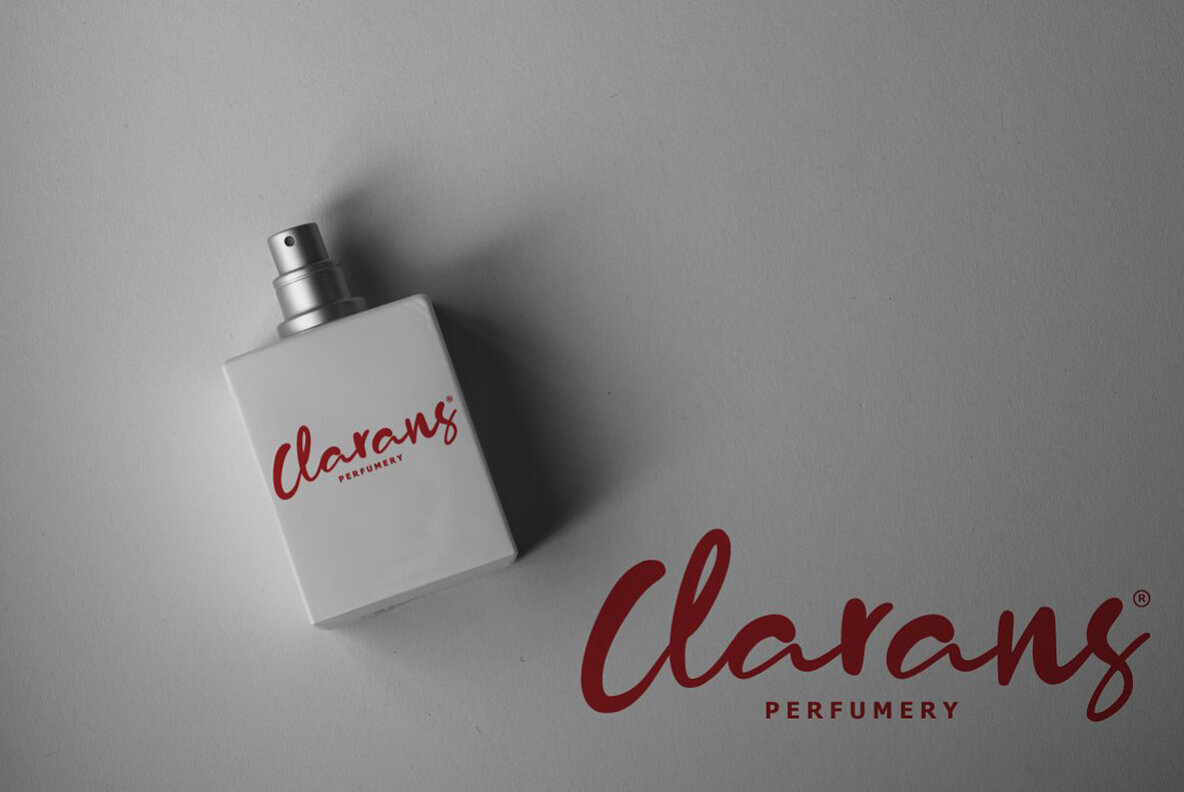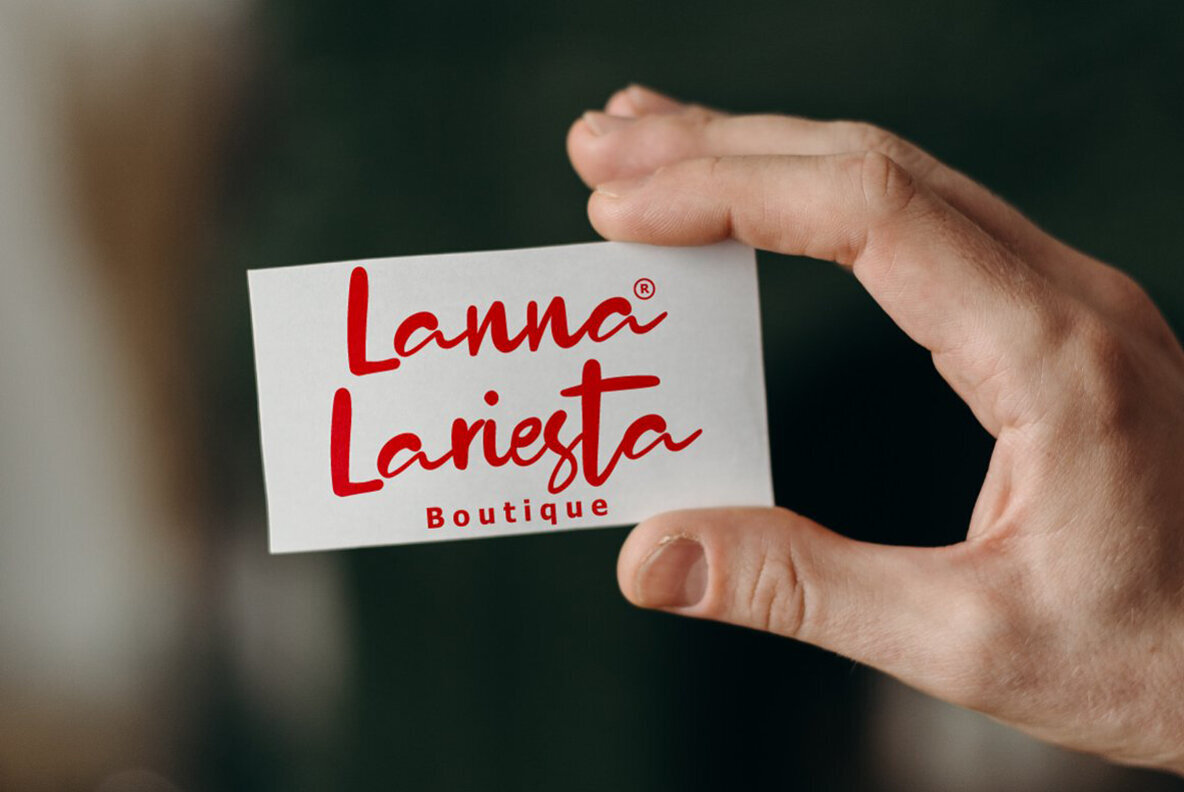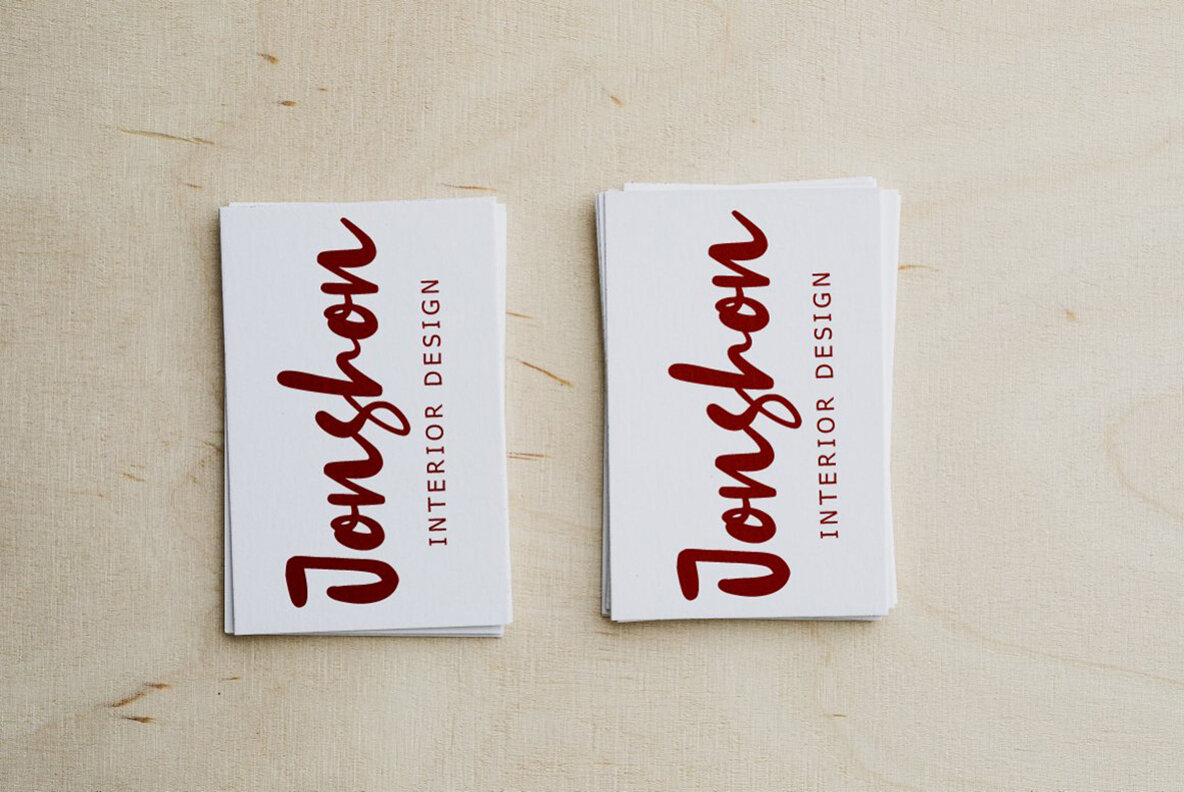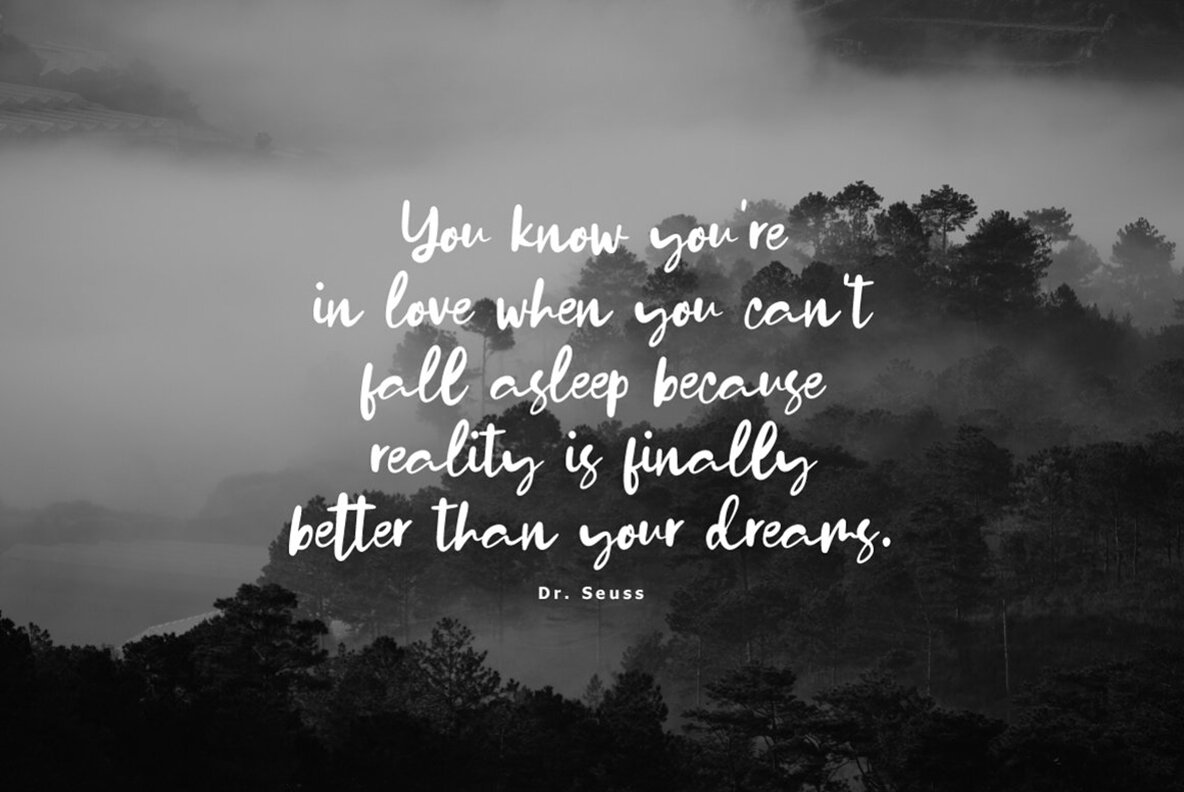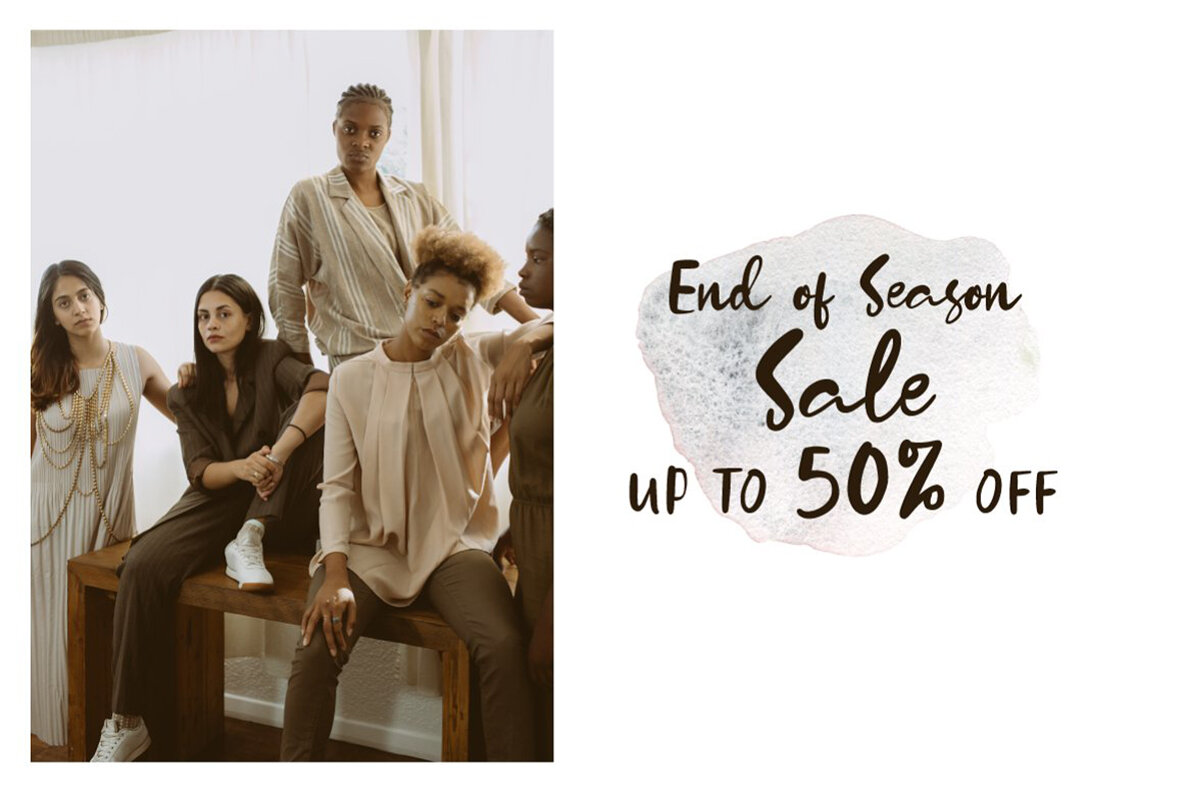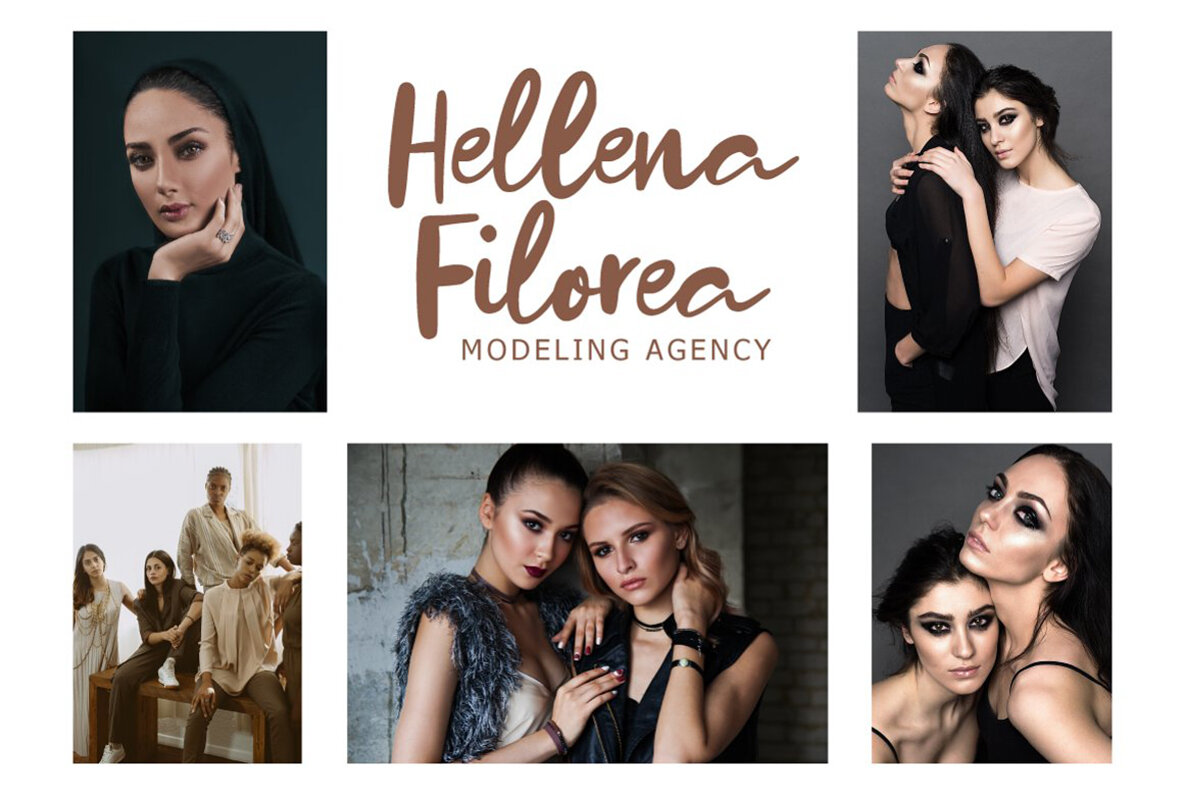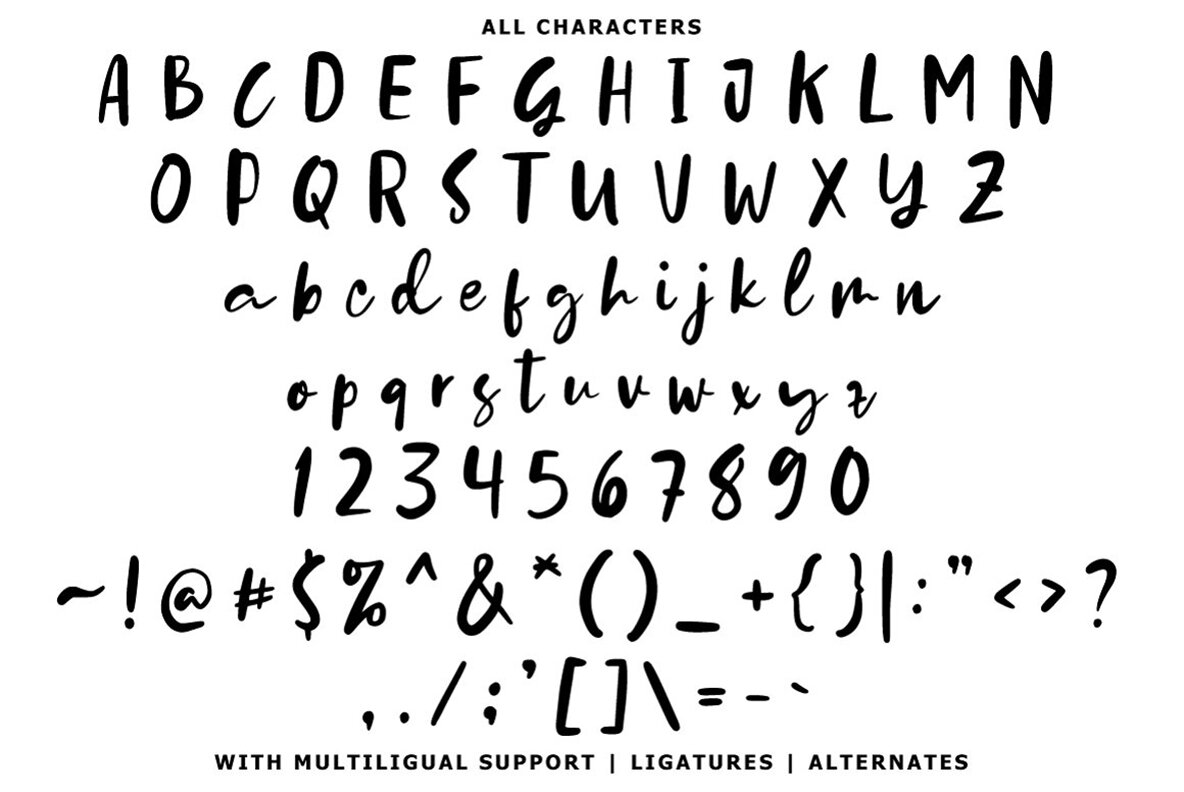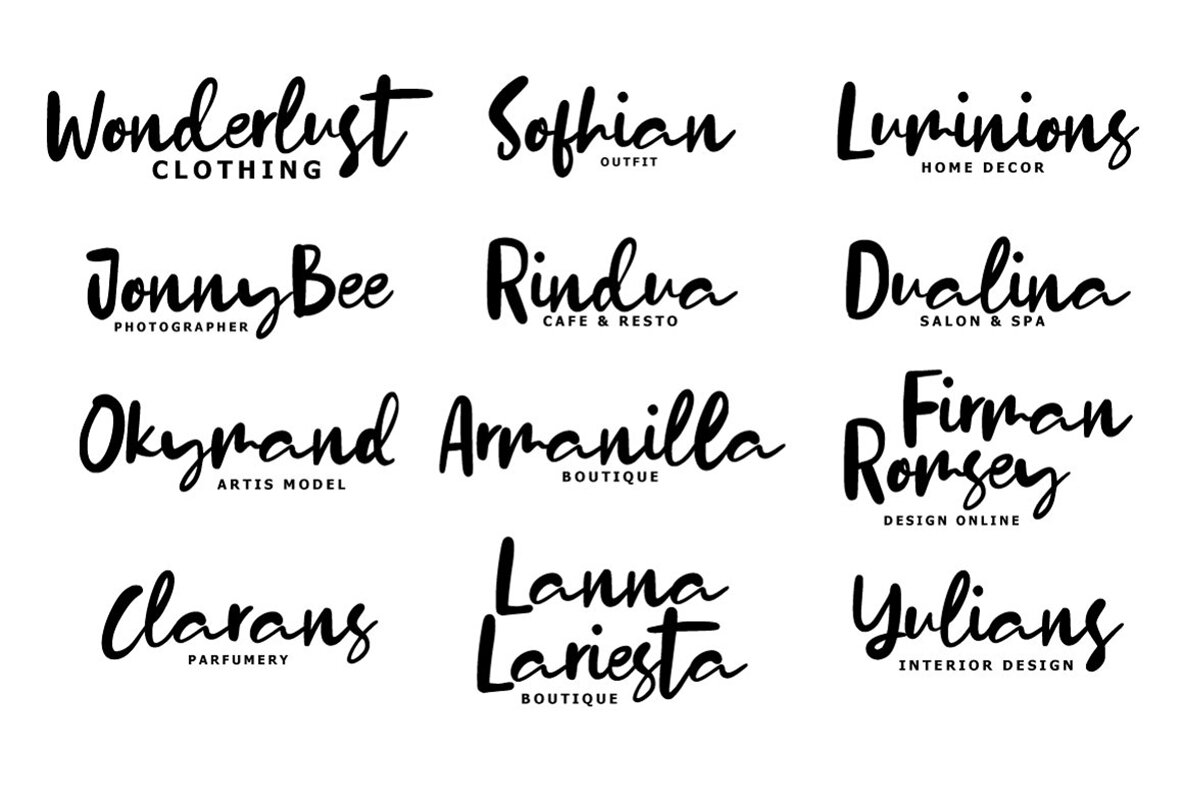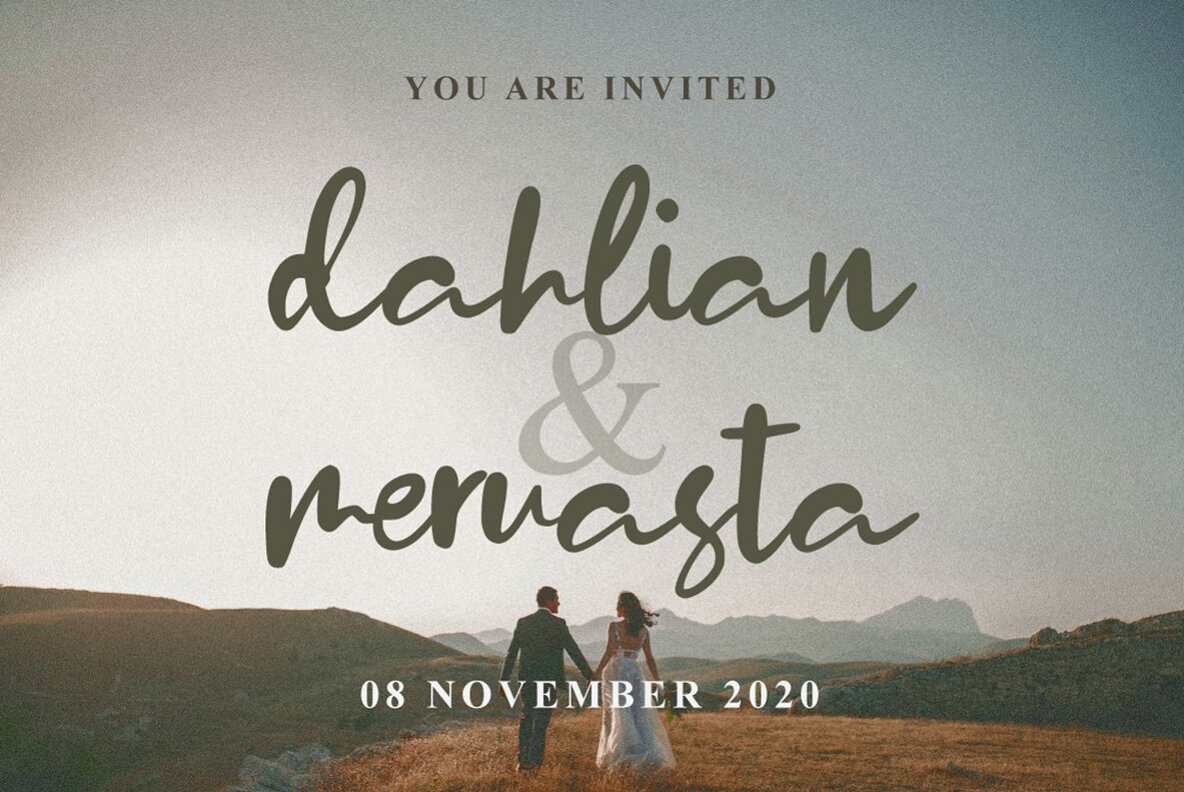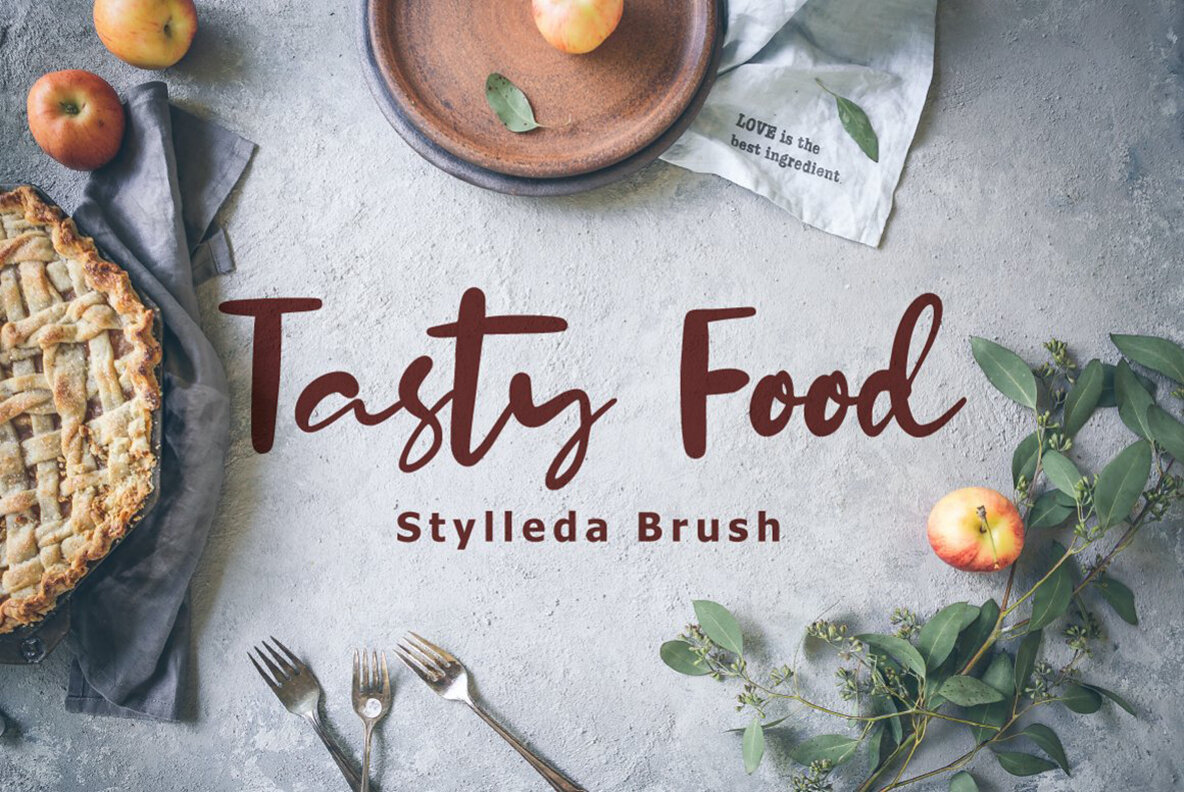
Stylleda Brush Font
Stylleda Brush
Stylleda Brush brings a touch of charm with its handmade calligraphy style, perfect for projects like invitation cards, branding materials, business cards, quotes, posters, and more.Stylleda Brush: Handcrafted Calligraphy Style